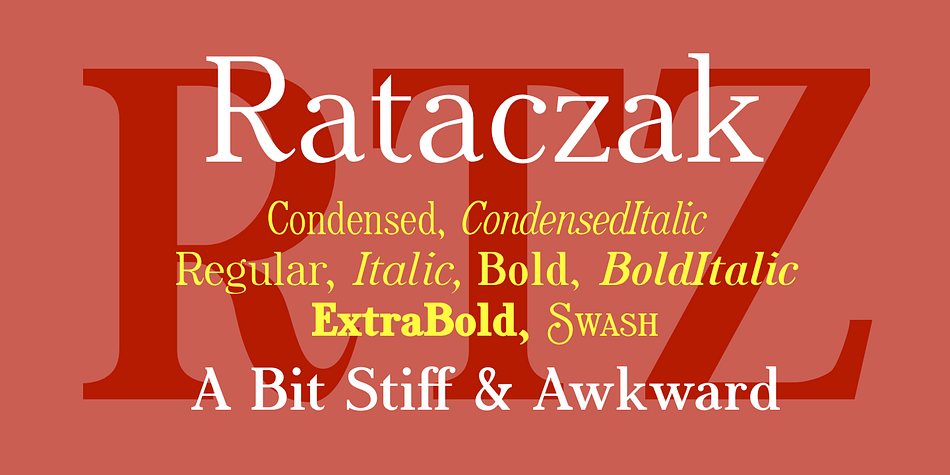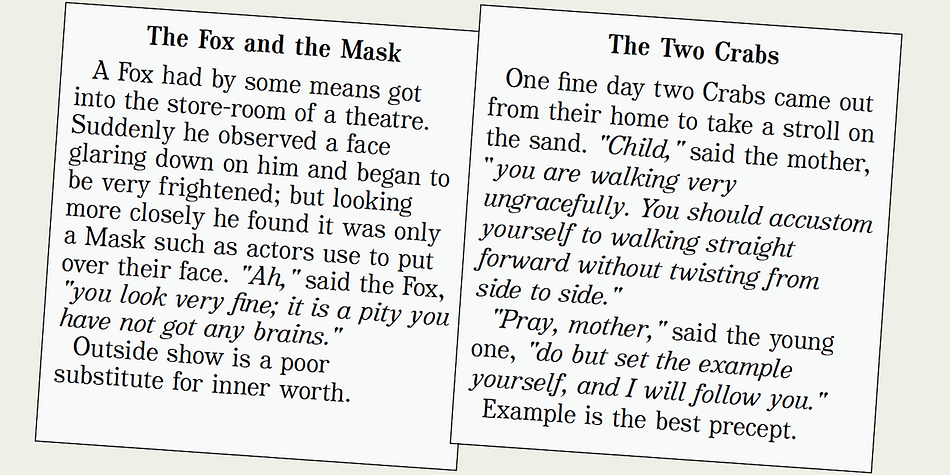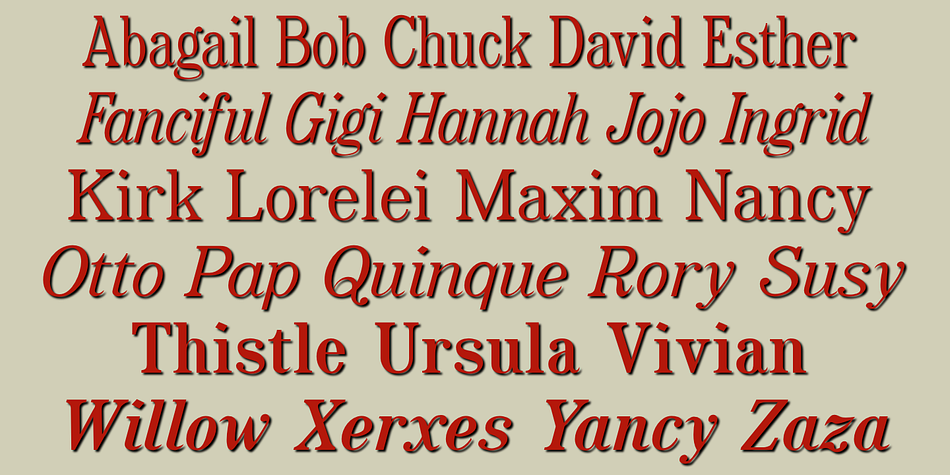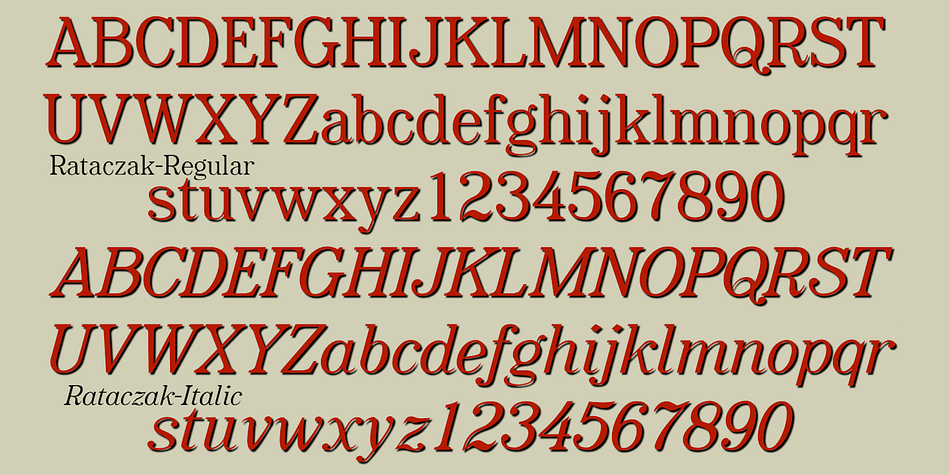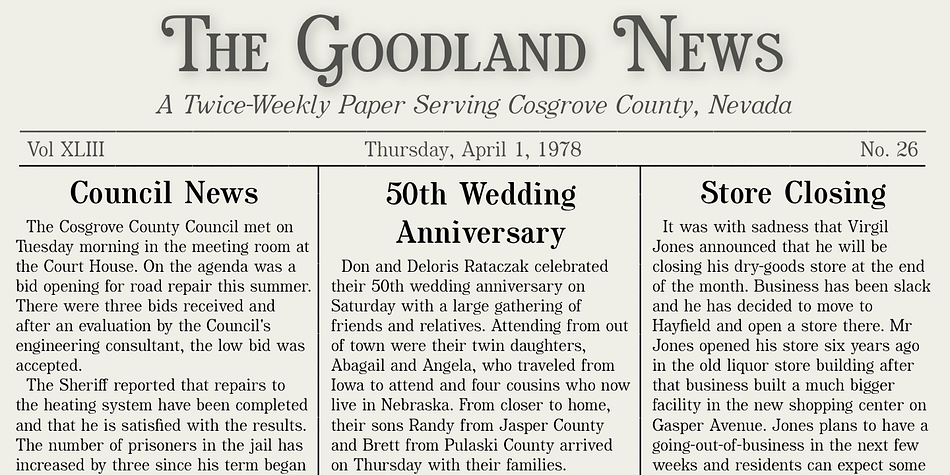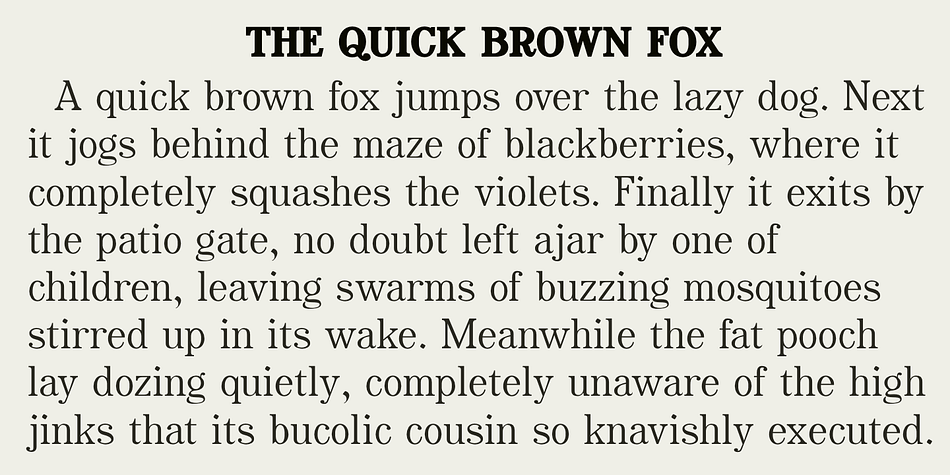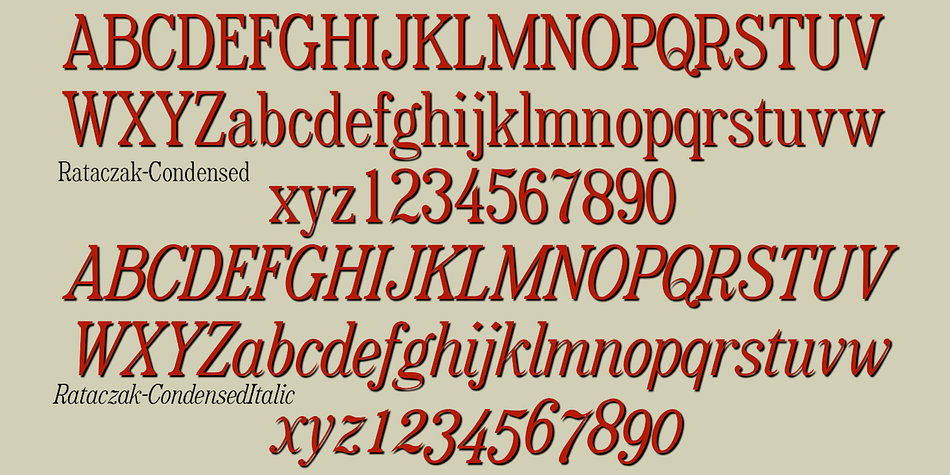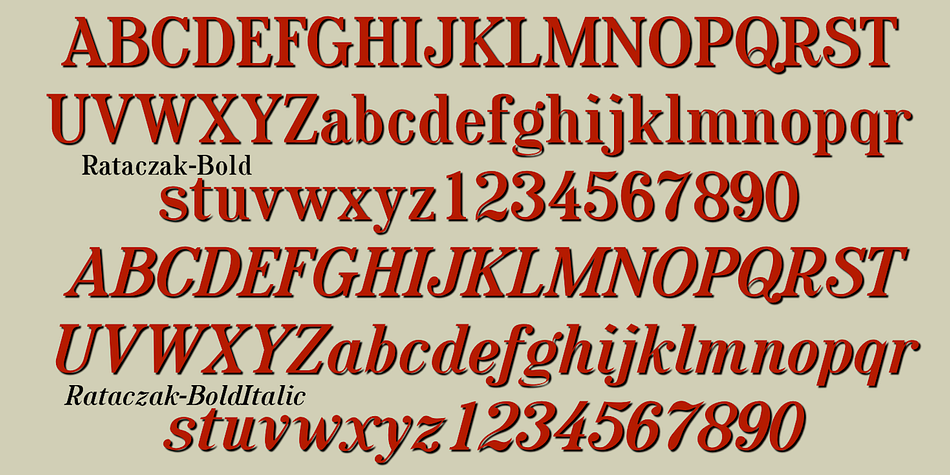
Designed by Robert Schenk, Rataczak is a serif and display serif font family. This typeface has eight styles and was published by Ingrimayne Type.
Rataczak is a stiff, awkward serifed font that was inspired by similar fonts from the 19th century. It is legible as a text font but not graceful. In addition to plain, italic, bold, bolditalic, extrabold, condensed, and condenseditalic styles, there is a font of swash capitals.